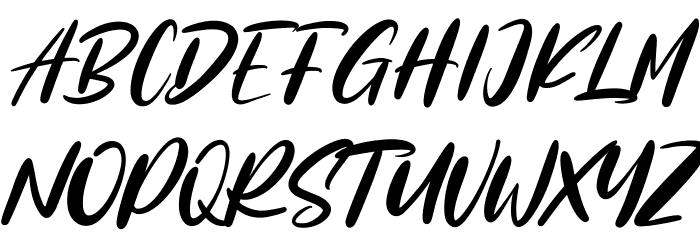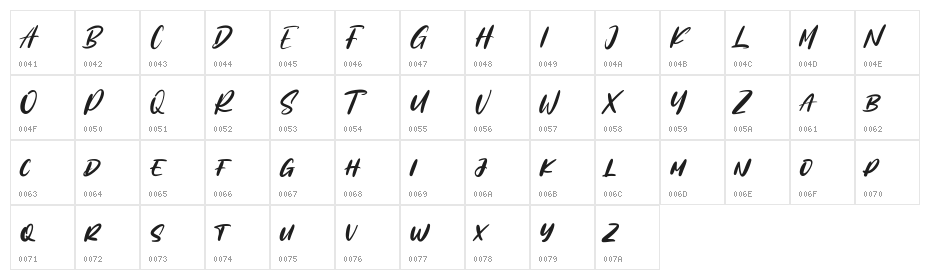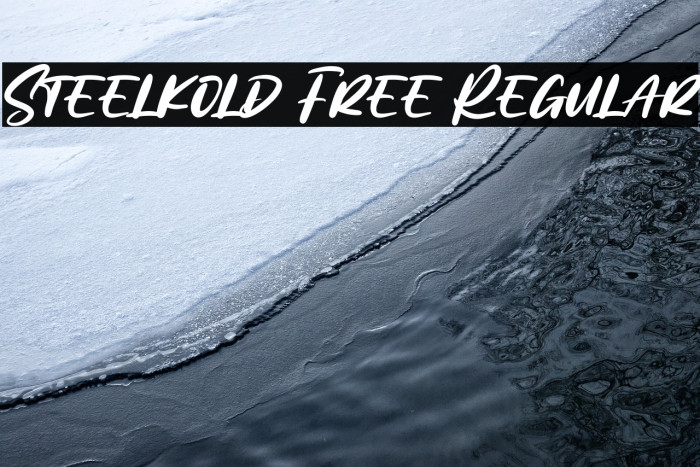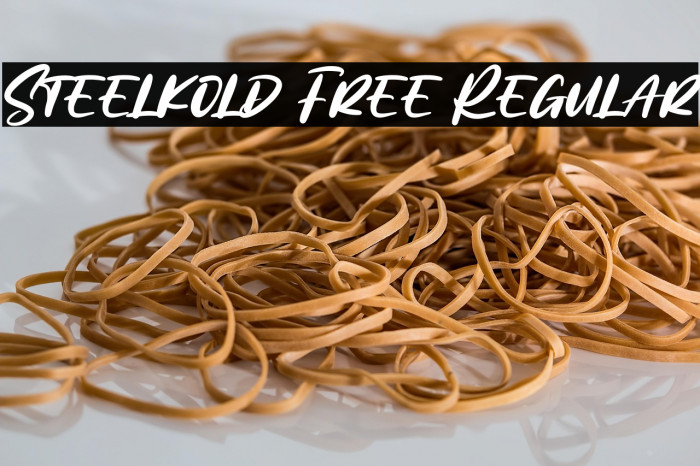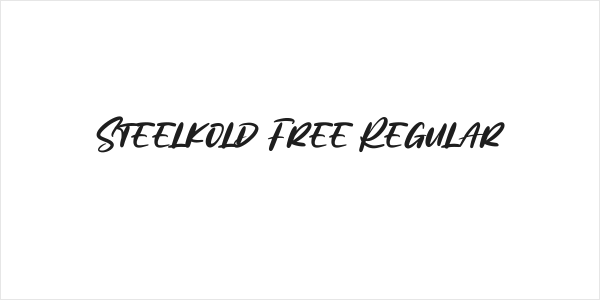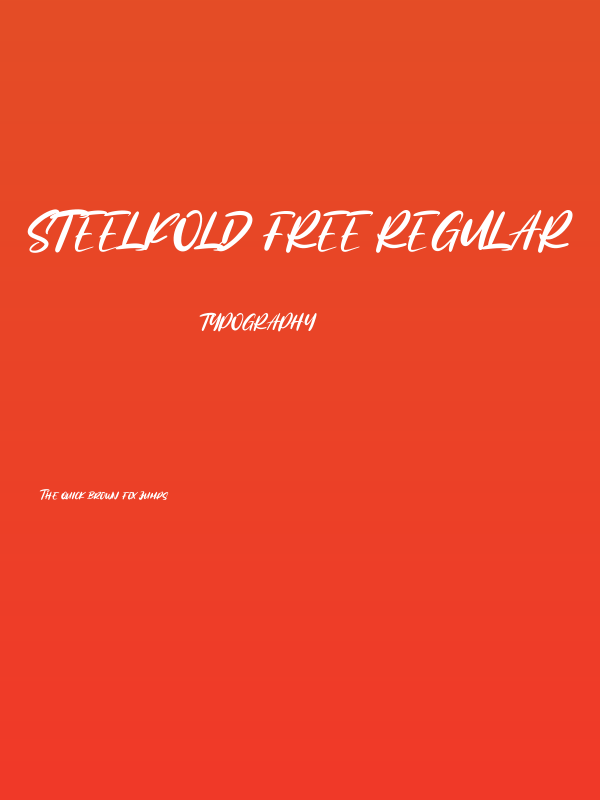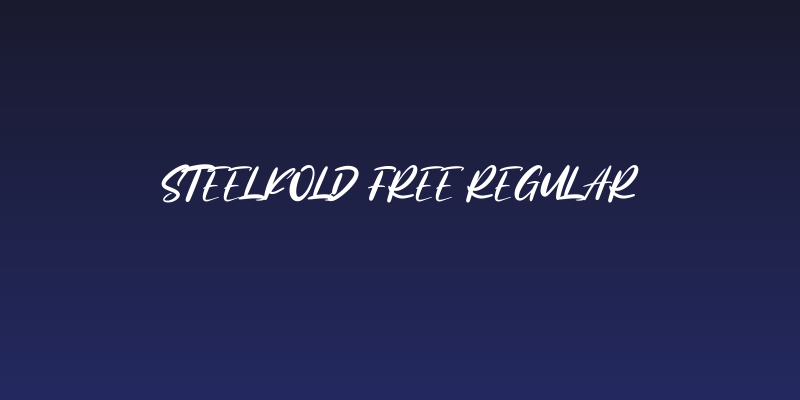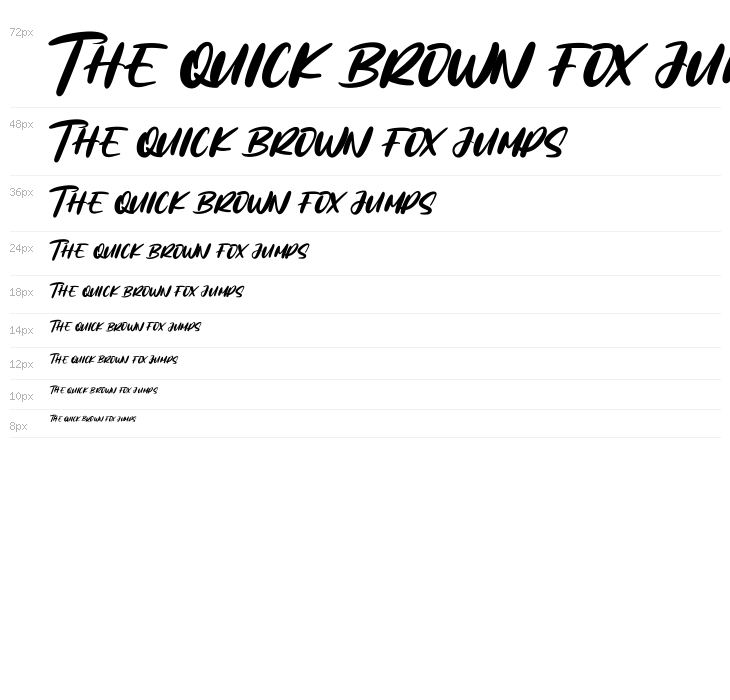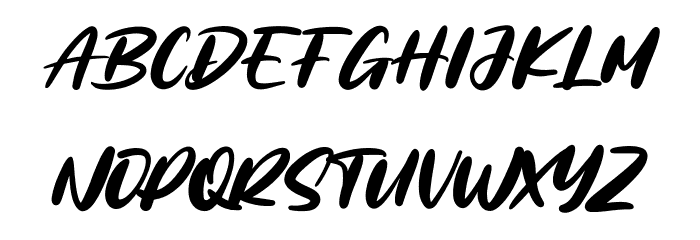
Steelkold Free Regular Font
Steelkold Free Regular Description
This font features a bold, energetic script style with a modern flair. The characters are designed with a dynamic flow, giving a sense of movement and spontaneity. The strokes are thick and consistent, providing a strong visual impact. Each letter is crafted with a slight slant, enhancing its handwritten appearance. The uppercase and lowercase letters maintain a cohesive style, making it suitable for various creative applications. The font's boldness and fluidity make it ideal for projects that require a touch of personality and flair.
| Proposed Projects | Ideal for branding, logos, posters, and social media graphics where a bold and personal touch is desired. |